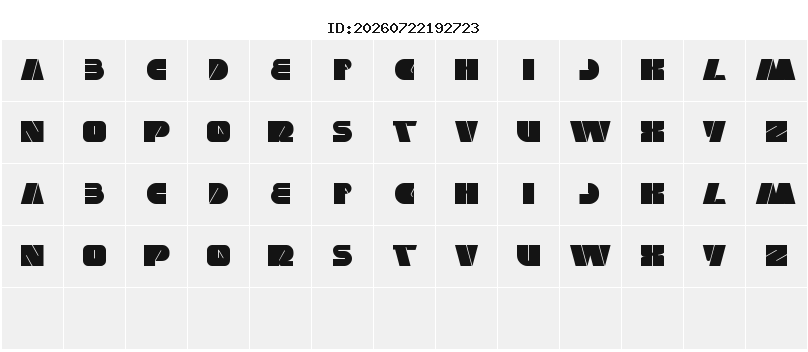
monster rock Preview
• Font Name: monster rock
About monster rock.ttf
monster rock.ttf is a modern, elegant sans-serif font designed for ultimate readability and visual harmony. Perfect for branding, headlines, web design, and print materials.